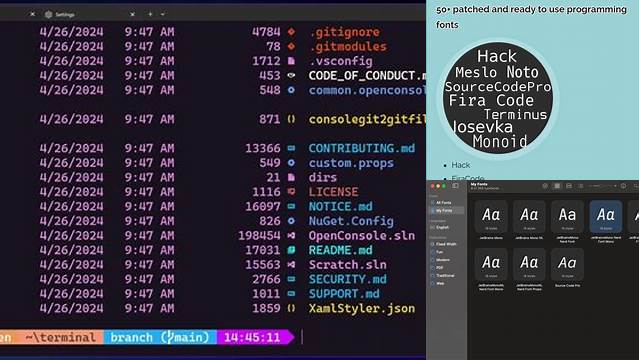
Nerd Fonts** are a fantastic addition to any developer's toolkit, especially when working with **Windows Terminal**. These fonts are essentially patched fonts that include a plethora of extra glyphs, icons, and symbols, making your terminal experience not only more functional but also visually appealing. If you're looking to spice up your command-line interface and add some personality to your coding environment, you've come to the right place. In this comprehensive guide, we'll dive deep into the world of Nerd Fonts, exploring what they are, why they're beneficial, and, most importantly, which are the **best Nerd Fonts** to use with **Windows Terminal**. We'll also cover the installation process and how to configure **Windows Terminal** to use these fonts, so you can get started right away. So, buckle up, tech enthusiasts, and let's transform your **Windows Terminal** into a coding powerhouse!
## What are Nerd Fonts and Why Use Them?
Okay, let's kick things off with the basics: ***What exactly are Nerd Fonts?*** Imagine your regular fonts, but supercharged with a massive injection of icons and symbols. These aren't just any random glyphs; they're specifically designed to work seamlessly with command-line applications and tools. Think of it as adding a Swiss Army knife to your font collection. You get all the usual characters, plus a whole arsenal of extras for your terminal needs.
But why bother with Nerd Fonts in the first place? That's a valid question, and the answer is multifaceted. First and foremost, Nerd Fonts significantly enhance the visual appeal of your terminal. Let's face it, staring at plain text all day can get monotonous. With Nerd Fonts, you can add flair and personality to your workspace, making it a more enjoyable environment to code in. Imagine your file explorer, Git status, or even your command prompts adorned with sleek icons that instantly convey information. It's like giving your terminal a stylish makeover.
Beyond aesthetics, Nerd Fonts also boost functionality and productivity. Those extra glyphs aren't just for show; they often represent specific functions or statuses within your terminal applications. For example, you might see icons indicating file types, Git branch status, or even the outcome of a command. This visual feedback can be incredibly helpful for quickly understanding what's going on in your terminal, saving you time and mental energy. Instead of deciphering cryptic text messages, you can glance at an icon and instantly grasp the situation. It's like having a visual language for your terminal.
Nerd Fonts are particularly useful for developers who use tools like ***Powerline***, ***Oh My Zsh***, and other terminal enhancements. These tools often rely on specific glyphs to display information correctly, and Nerd Fonts provide the necessary characters to make them shine. Without Nerd Fonts, these tools might display boxes or other placeholders instead of the intended icons, which can be frustrating and confusing. Nerd Fonts ensure that these tools work as intended, giving you the full benefit of their features. It's like unlocking the true potential of your terminal tools.
Moreover, Nerd Fonts are a godsend for customization enthusiasts. If you're the kind of person who loves to tweak every aspect of your environment to perfection, Nerd Fonts offer a wealth of options to play with. You can customize your prompts, status lines, and even your editor to display information in a way that suits your workflow. It's like having a blank canvas to create your ideal coding environment. With Nerd Fonts, you're not just using a terminal; you're crafting a personalized experience that reflects your style and preferences.
In essence, Nerd Fonts bridge the gap between functionality and aesthetics in the terminal. They provide the visual cues and icons that make your terminal more informative and engaging, while also adding a touch of personal flair. Whether you're a seasoned developer or just starting your coding journey, Nerd Fonts can elevate your terminal experience to a whole new level. So, if you're ready to transform your **Windows Terminal** into a coding command center, let's dive into the best Nerd Fonts available.
## Top Nerd Fonts for Windows Terminal
Alright, let's get to the juicy part: **the best Nerd Fonts** for **Windows Terminal**. With so many options out there, it can be overwhelming to choose the right one. Fear not, fellow coders! We've compiled a list of the top contenders, each with its unique strengths and characteristics. Whether you prefer a sleek and modern look or a more retro and pixelated vibe, there's a Nerd Font out there for you.
### 1. Fira Code Nerd Font
First up is ***Fira Code Nerd Font***, a popular choice among developers for its clean and legible design. Fira Code is renowned for its programming ligatures, which are special characters that combine multiple symbols into a single, more visually appealing glyph. For example, the `!=` sequence can be displayed as a single ≠symbol, making your code easier to read and understand. This feature alone makes Fira Code a standout option for anyone who spends a lot of time staring at code.
But Fira Code Nerd Font offers more than just ligatures. It also includes a comprehensive set of Nerd Font icons, covering a wide range of symbols and glyphs. Whether you need icons for file types, Git statuses, or command prompts, Fira Code has you covered. The font's clean and consistent design ensures that these icons blend seamlessly with your code, creating a harmonious and visually pleasing terminal environment. It's like having a font that's both functional and stylish.